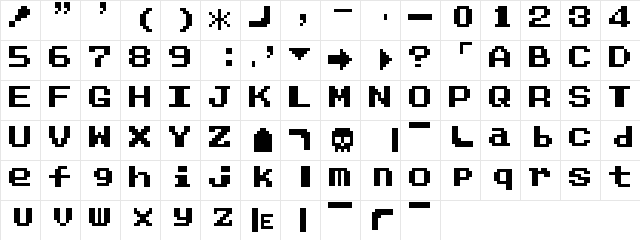
Dragon Warrior IV Regular
| Designer | Mark sensen |
Design Context for Dragon Warrior IV Typeface
Dragon Warrior IV offers clean, dependable letterforms without strong stylistic allegiance, making it a practical choice for designers who need flexibility.